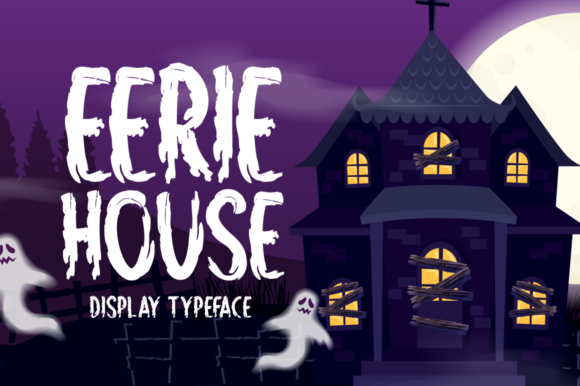
Unleash the Dark Charms of Eerie House Font: Your Gateway to Hauntingly Mesmerizing Creations!
Are you seeking a font that evokes the spine-tingling essence of Halloween while leaving an unforgettable mark on your designs? Look no further than Eerie House Font, the master of spooktacular typography. This captivating display font, crafted by the ingenious minds at Seemly Fonts, transports you to a realm of creativity where darkness meets enchantment.
Eerie House Font: A Visual Symphony of Chills and Thrills
Enter a world of haunting beauty with Eerie House Font, where each letter dances with a captivating aura of mystery. Its intricate lines and mesmerizing curves weave tales of the unknown, making it the perfect choice for conjuring an atmosphere of intrigue and suspense.
Unleash Your Halloween Spirit with Eerie House Font
Eerie House Font is the ultimate weapon in your creative arsenal for crafting Halloween masterpieces. Its eerie charm lends itself seamlessly to invitations, posters, flyers, and any project that demands a touch of the supernatural. Let your imagination run wild as you weave spellbinding stories through your designs, leaving your audience spellbound and craving more.
Beyond Halloween: Eerie House Font's Endless Versatility
While Eerie House Font reigns supreme in the realm of Halloween aesthetics, its versatility extends far beyond the haunted season. Its dark elegance finds harmony in horror-themed projects, movie posters, album covers, and branding materials. Unleash your creativity and explore the boundless possibilities that await you with this font.
A Creative Playground for Designers and Artists
Eerie House Font beckons you to explore the depths of your creativity, offering a playground where imagination knows no bounds. Dive into a world where shadows dance and mystery unfolds, crafting designs that captivate and enthrall your audience. Whether you're a seasoned designer or a budding artist, Eerie House Font is your passport to a realm of boundless inspiration.